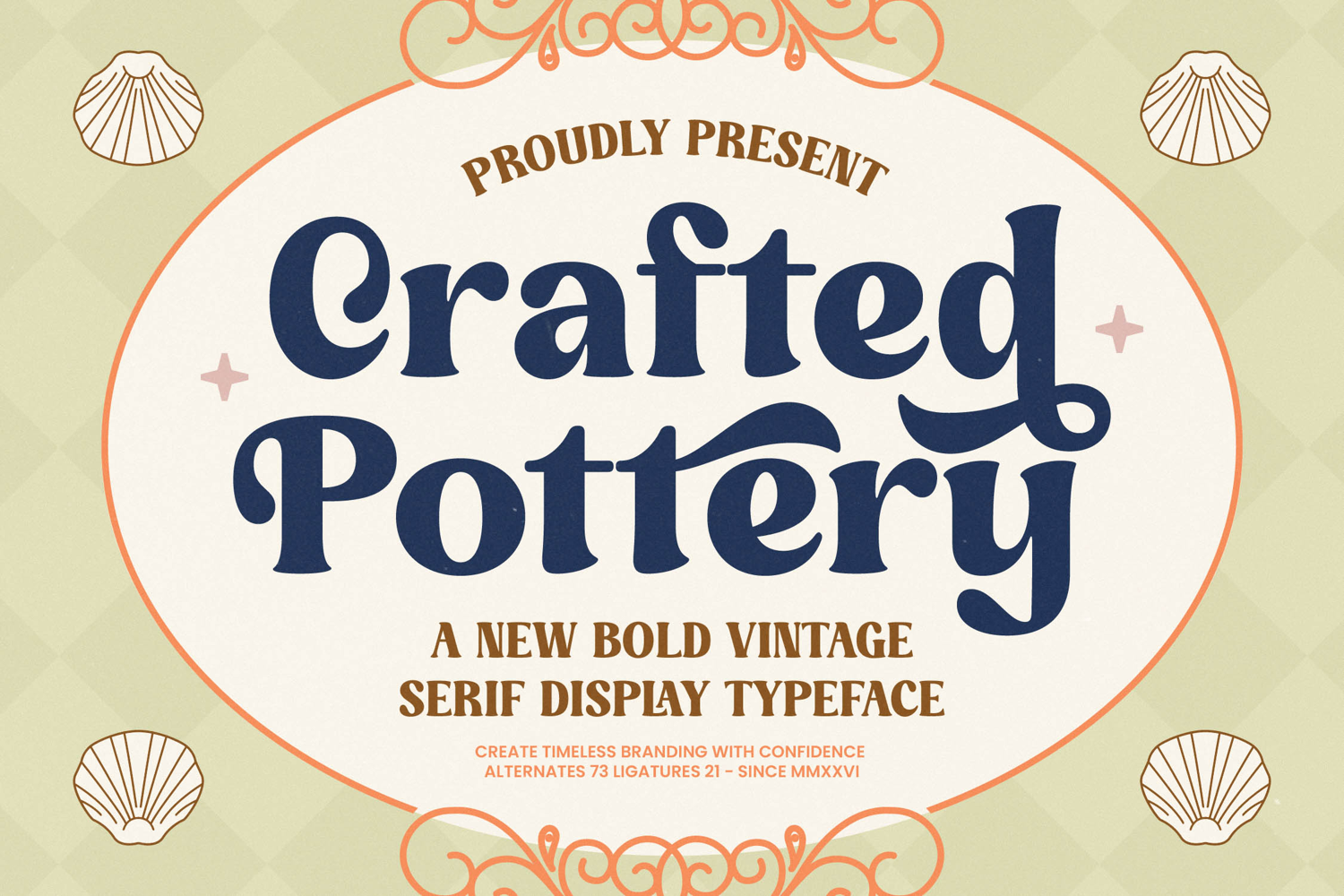
Experience the soulful charm of Crafted Pottery, a typeface that breathes life into every design with its organic curves and timeless elegance. This font is more than just letters; it is a curated aesthetic designed to elevate your creative projects to new heights of sophistication.
Inspired by the artisanal beauty of hand-thrown ceramics and the nostalgic warmth of vintage coastal aesthetics, this typeface captures a unique blend of heritage and contemporary flair. Its fluid forms and soft terminals evoke a sense of manual craftsmanship, making it feel both grounded and exceptionally poetic.
Exuding a confident and approachable personality, this modern serif display is engineered for maximum branding impact. Its luxury typography style features a high-contrast serif design that commands attention, making it an essential editorial font for those who want their message to resonate with grace and authority.
Perfectly aligned with the current modern serif trend, this typeface meets the demand for character-driven typography in a sea of generic designs. It stands at the forefront of editorial display fonts, offering a refreshing departure from minimalism while maintaining the professional polish required by today's leading designers.
Whether you are crafting a standout logo design or developing a comprehensive branding identity, this font delivers versatility across all platforms. It is the ideal choice for high-end editorial layouts, artisanal packaging, romantic wedding stationery, and avant-garde fashion lookbooks that require a touch of vintage soul.
This professional package includes a vast array of ligatures and alternates that allow for deep customization and unique typographic compositions. With extensive multilingual support and a full set of international characters, plus decorative swashes, it ensures your global projects remain consistent and visually stunning.